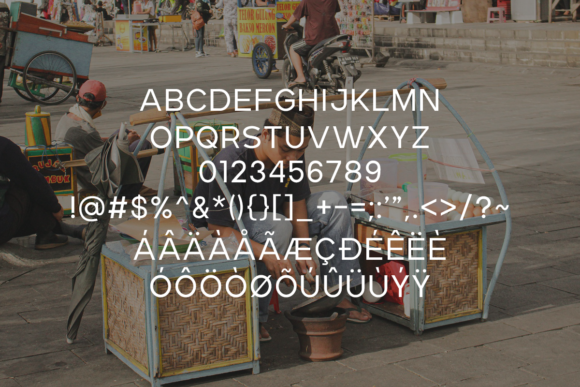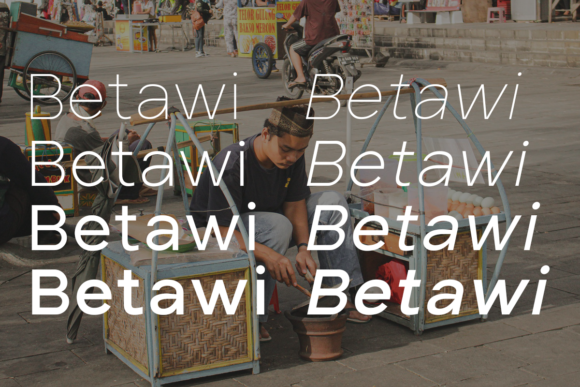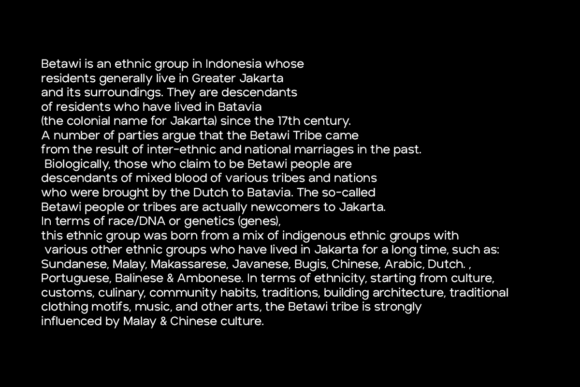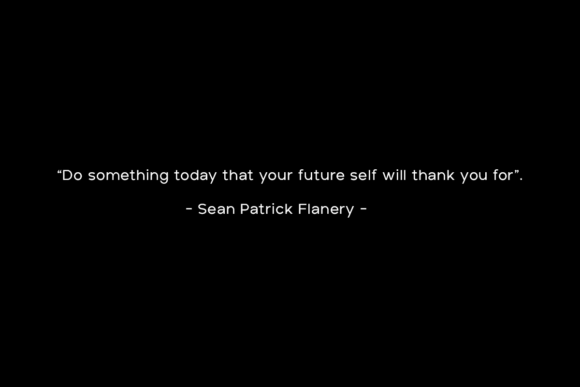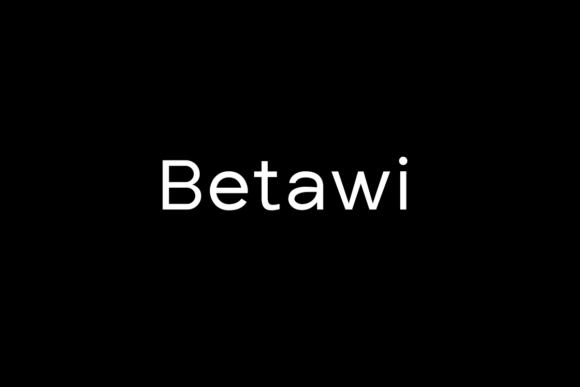
The Designer’s Delight: Uncovering the Charm of Betawi Font
What I Love About Betawi Font
- ✨ Clean and Minimal Design: Betawi Font boasts a sleek, uncluttered design that makes it perfect for a wide range of projects.
- ✅ Versatility: Its neutral tone and simple shape make it an excellent match for various design styles and themes.
- 💡 Ease of Use: The font is highly legible, even at small sizes, making it ideal for body text and captions.
While Betawi Font is an excellent choice, it’s not without its quirks. For instance:
- 🤔 Limited Extras: The font doesn’t come with a wide range of extra glyphs or OpenType features, which might be a drawback for some designers.
- ⚠️ Not Ideal for Body Text: While legible, Betawi Font might not be the best choice for lengthy body text due to its clean, minimalist design.
The Designer Inspiration Behind Betawi Font
Betawi Font was designed with the goal of creating a clean, minimal sans serif font that could be used in a wide range of projects. The designer’s inspiration came from the urban landscape and the need for a font that could communicate clearly and effectively in a variety of contexts.
| Font Name | Betawi Font |
| Author | Human Design |
Q: What type of projects is Betawi Font best suited for?
A: Betawi Font is an excellent choice for projects that require a clean, modern look, such as branding, advertising, and digital design.
Q: Is Betawi Font suitable for body text?
A: While Betawi Font is legible, it might not be the best choice for lengthy body text due to its clean, minimalist design. Consider using a font with more character and personality for body text.